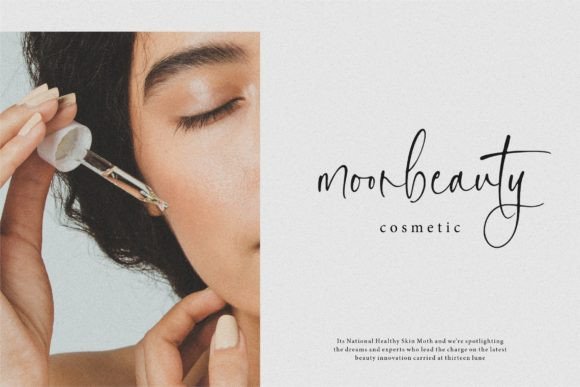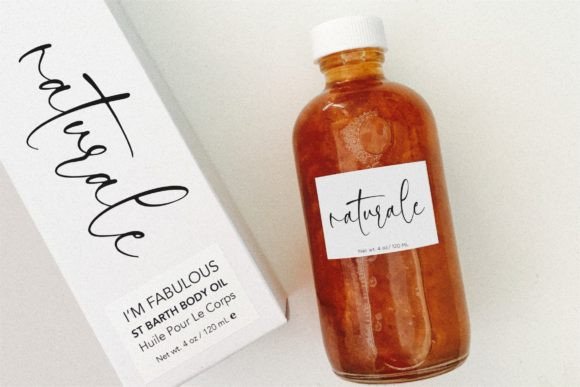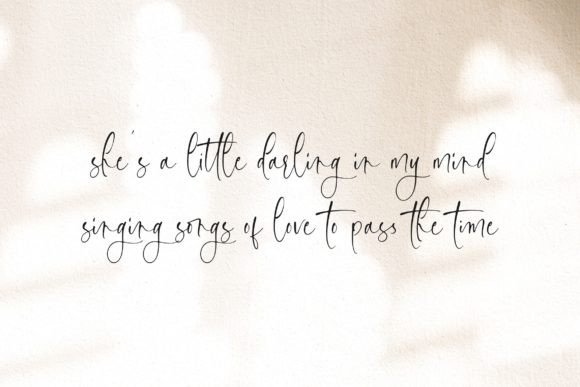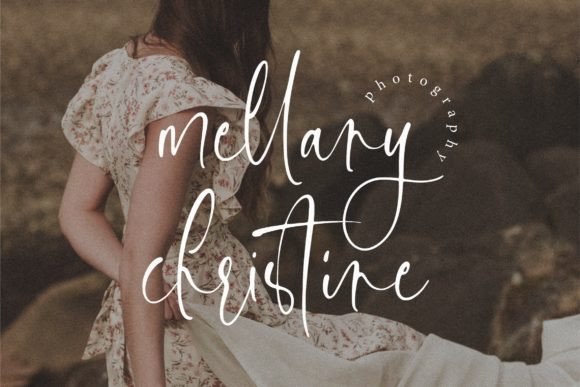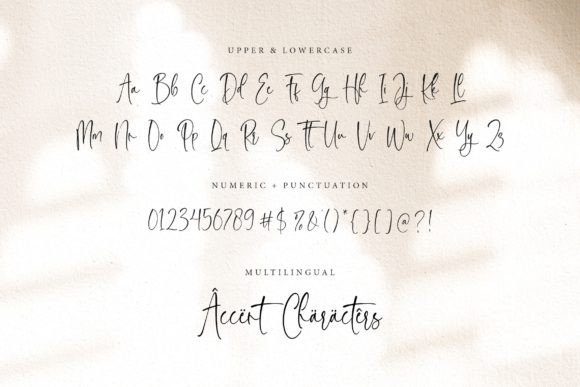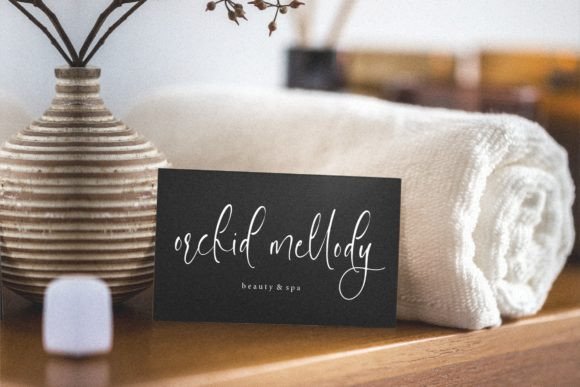
Handmost Font
About Handmost Handwritten Font
Handmost Handwritten Font is a stylish and modern typeface created to bring elegance and authenticity to your projects. With smooth curves, balanced proportions, and refined strokes, it combines the beauty of handwriting with a polished, professional appearance. Because of its versatility, Handmost Handwritten Font is ideal for packaging, branding, invitations, magazines, social media graphics, and wedding designs.
A Handwritten Typeface with Refined Style
Handwritten fonts often express charm and personality, and Handmost HandwrittenFont captures this perfectly. Its elegant strokes balance creativity with readability, making it suitable for both casual and professional uses. In addition, its clean design ensures your projects look stylish and timeless across print and digital media.
Special moments require fonts that feel personal, and Handmost HandwrittenFont is an excellent choice. For example, it enhances wedding invitations, event stationery, and thank-you notes with elegance. Moreover, it works beautifully for seasonal greeting cards, festive menus, and birthday designs, ensuring every creation feels warm and memorable.
A Script Typeface for Branding and Packaging
Designers and businesses can rely on Handmost HandwrittenFont to create powerful branding. It looks stunning on boutique logos, product packaging, and promotional materials. Furthermore, it adapts seamlessly to magazine layouts, social media campaigns, and advertising projects. When paired with minimal sans serif fonts, it forms a professional and creative identity.
Flexible Across Print and Digital Platforms
Another advantage of Handmost HandwrittenFont is its adaptability across mediums. In print, it elevates posters, brochures, and merchandise with personality. Digitally, it integrates smoothly into blogs, websites, and online stores. Since it scales clearly from small icons to large banners, it ensures consistency and visual clarity across every format.